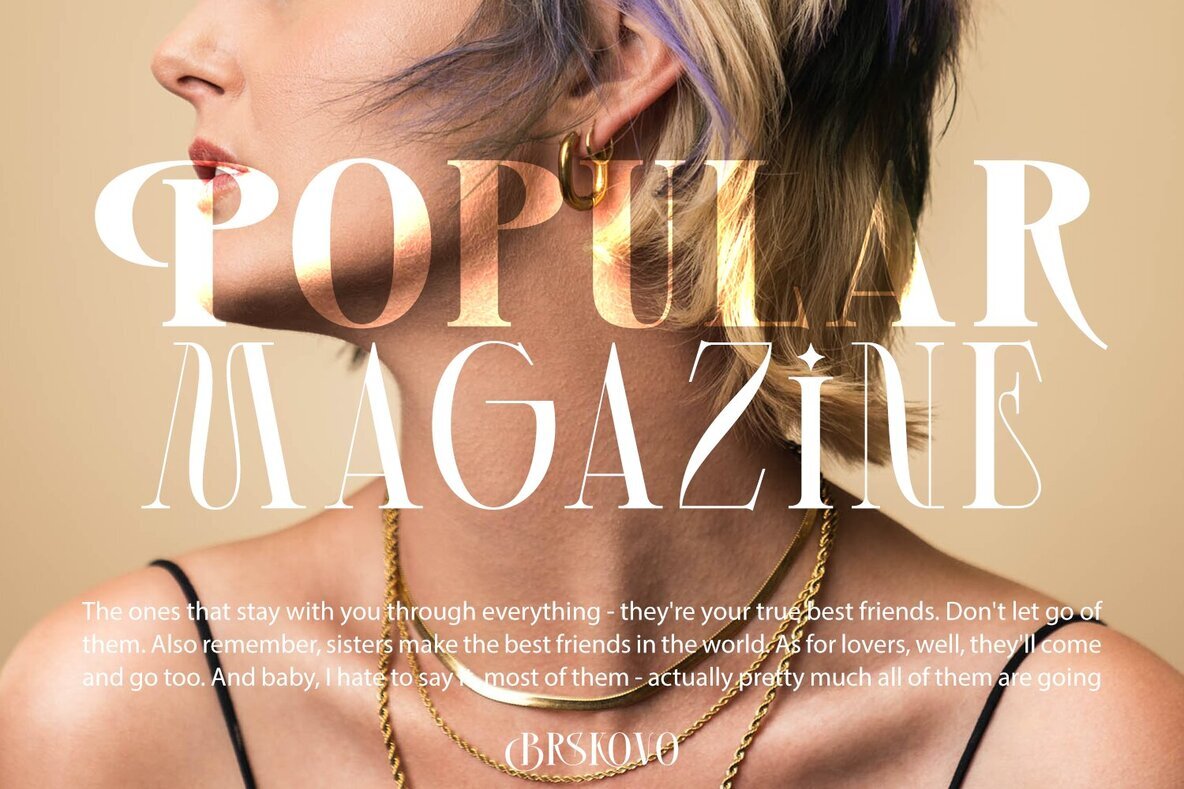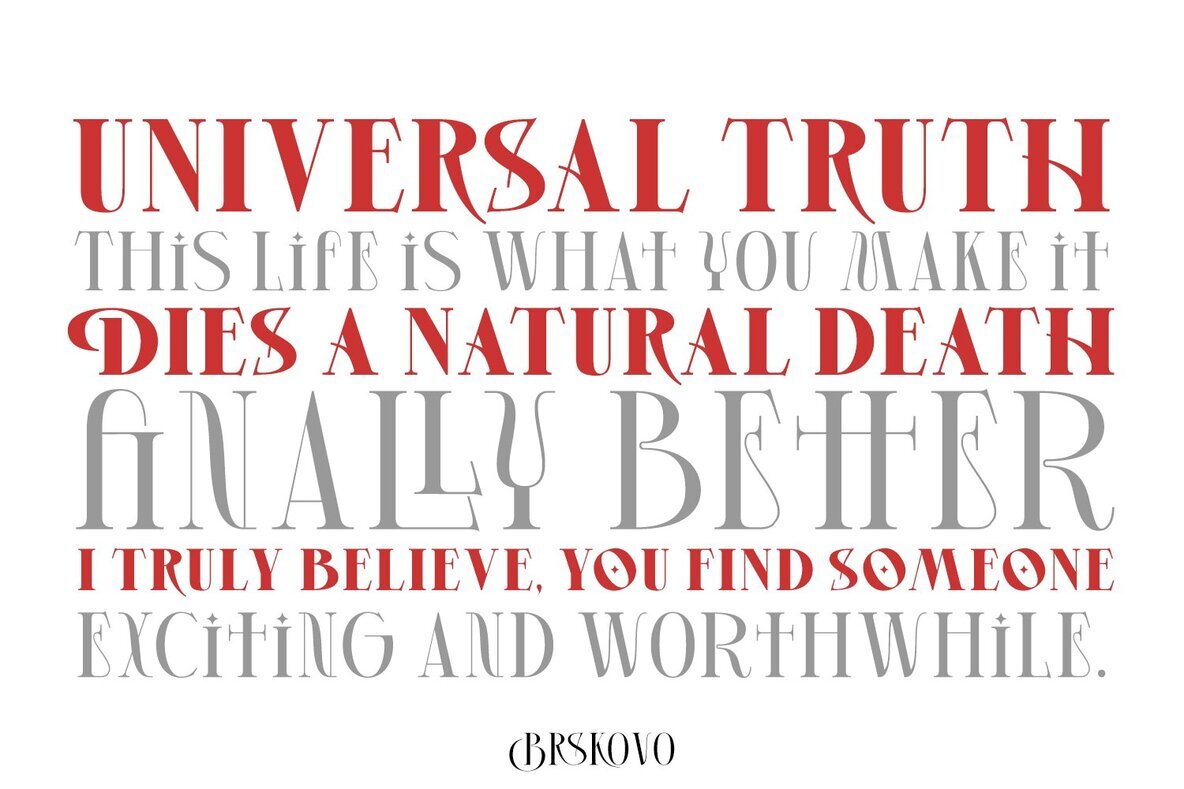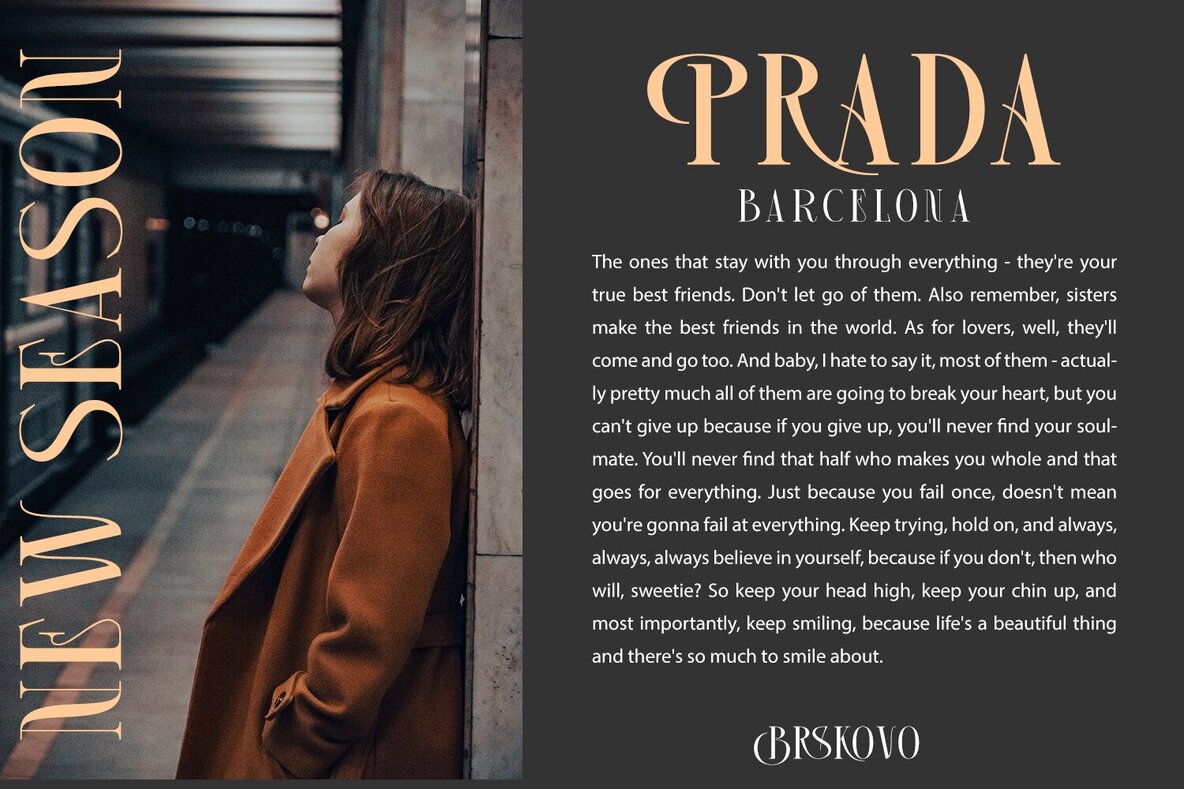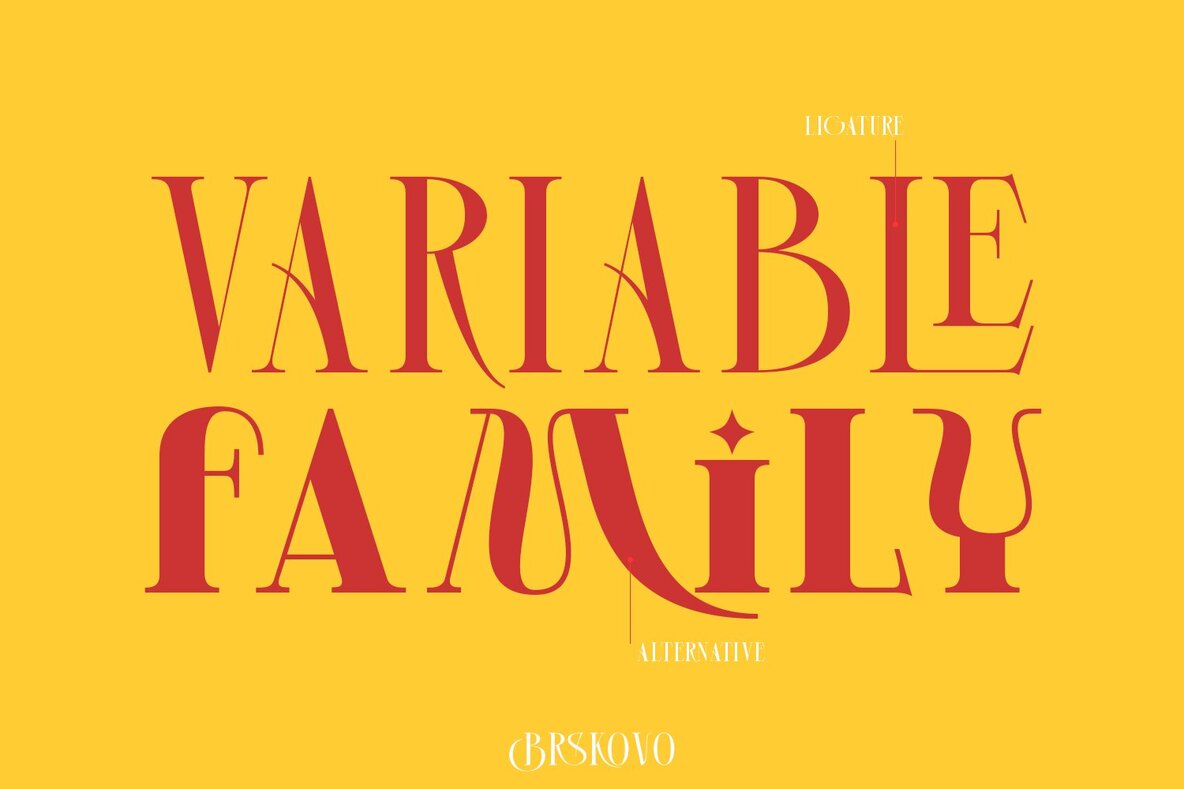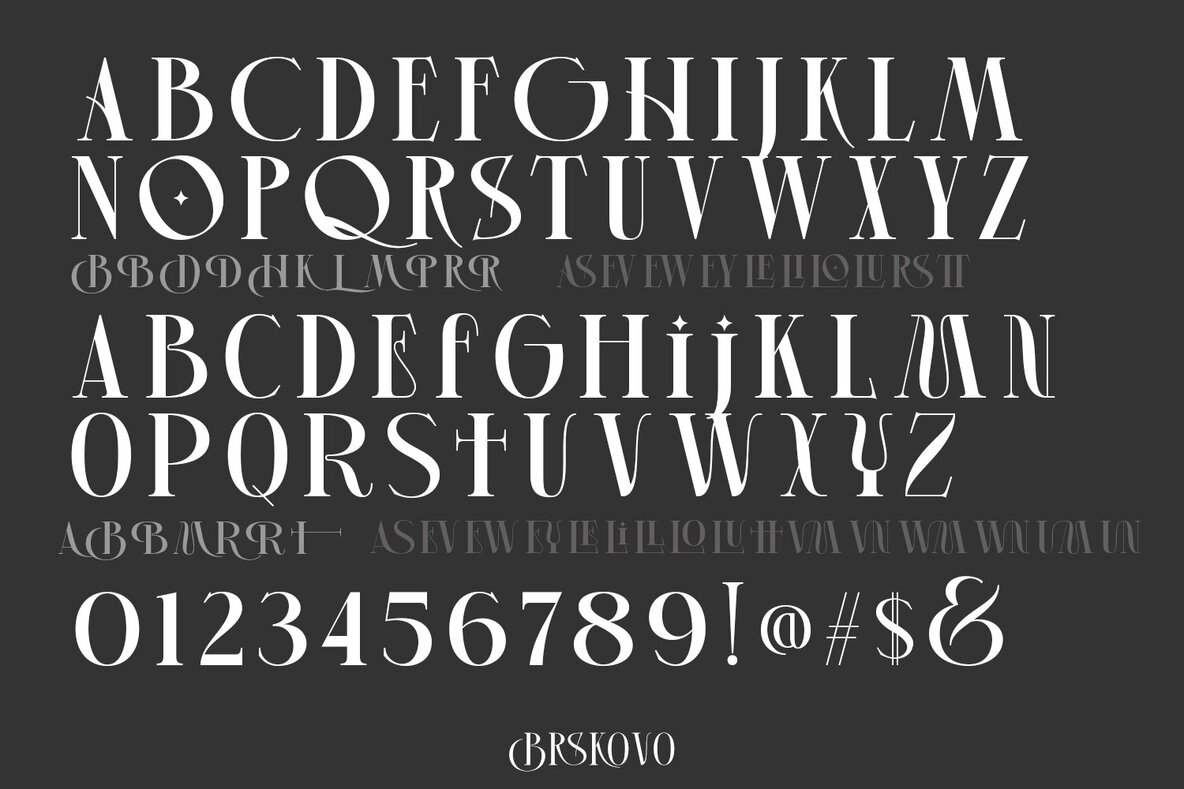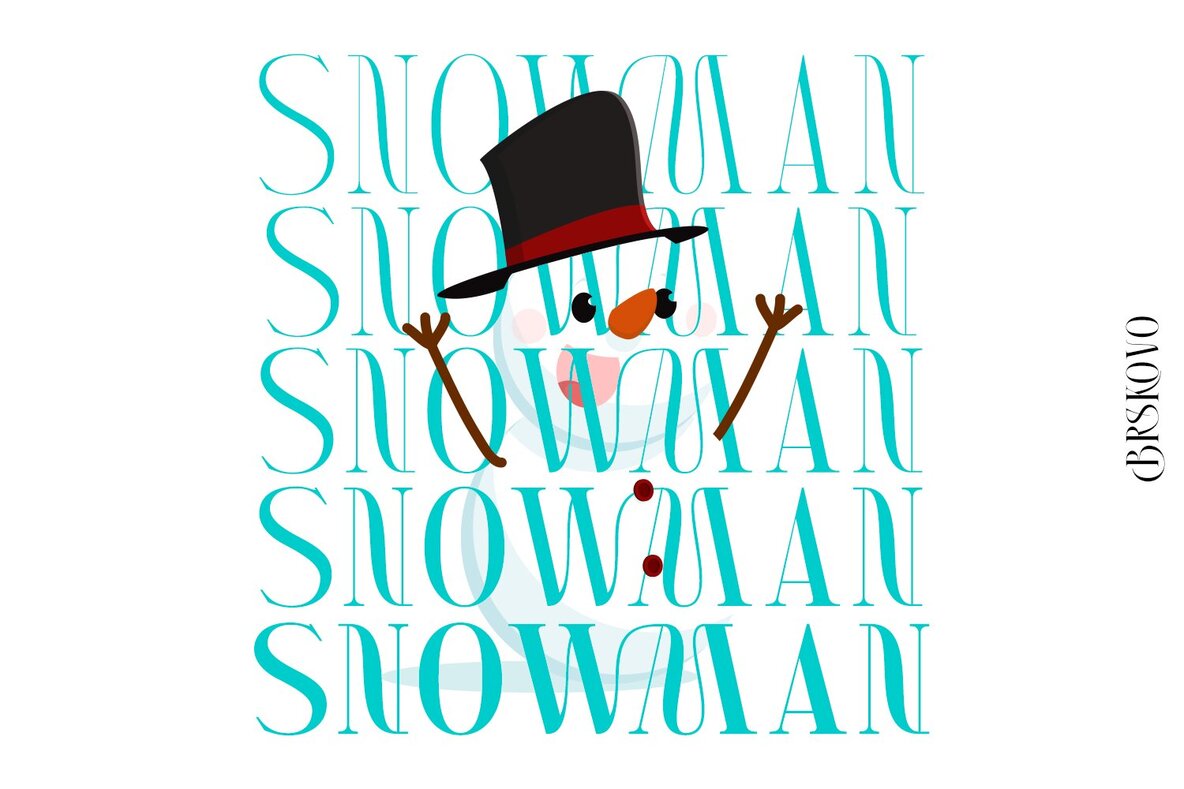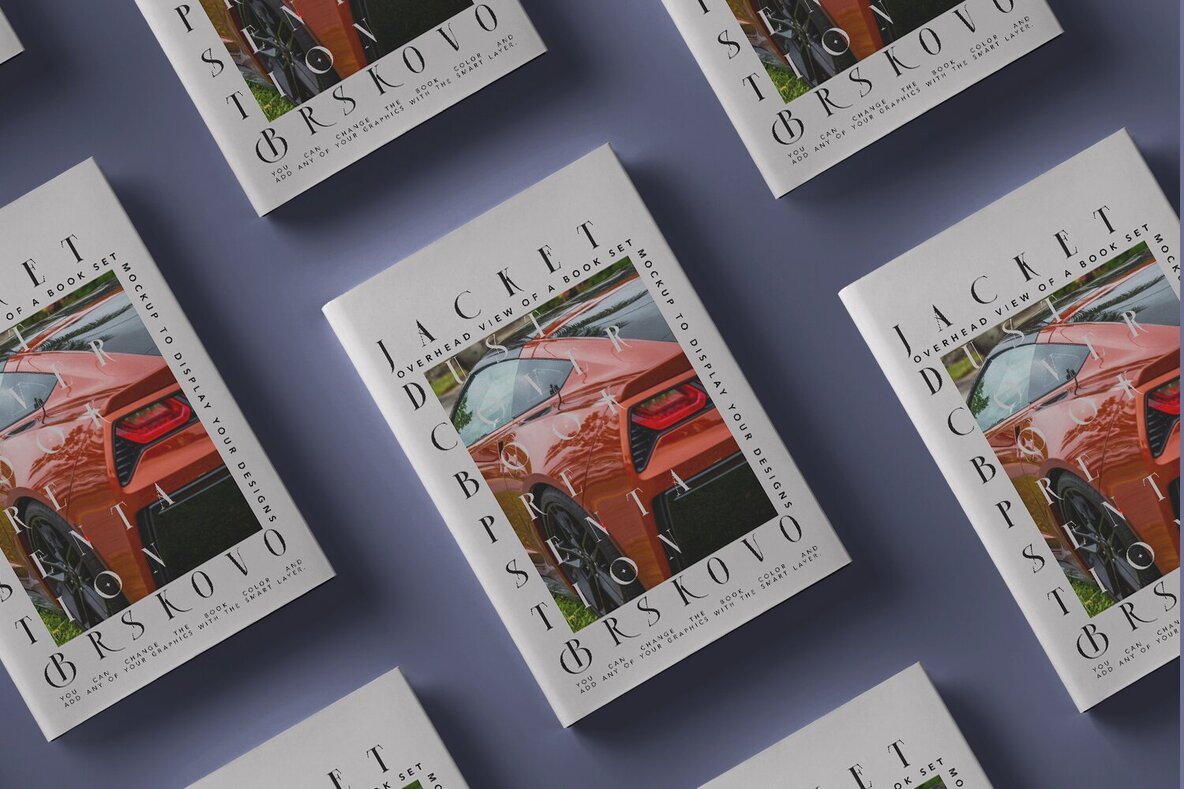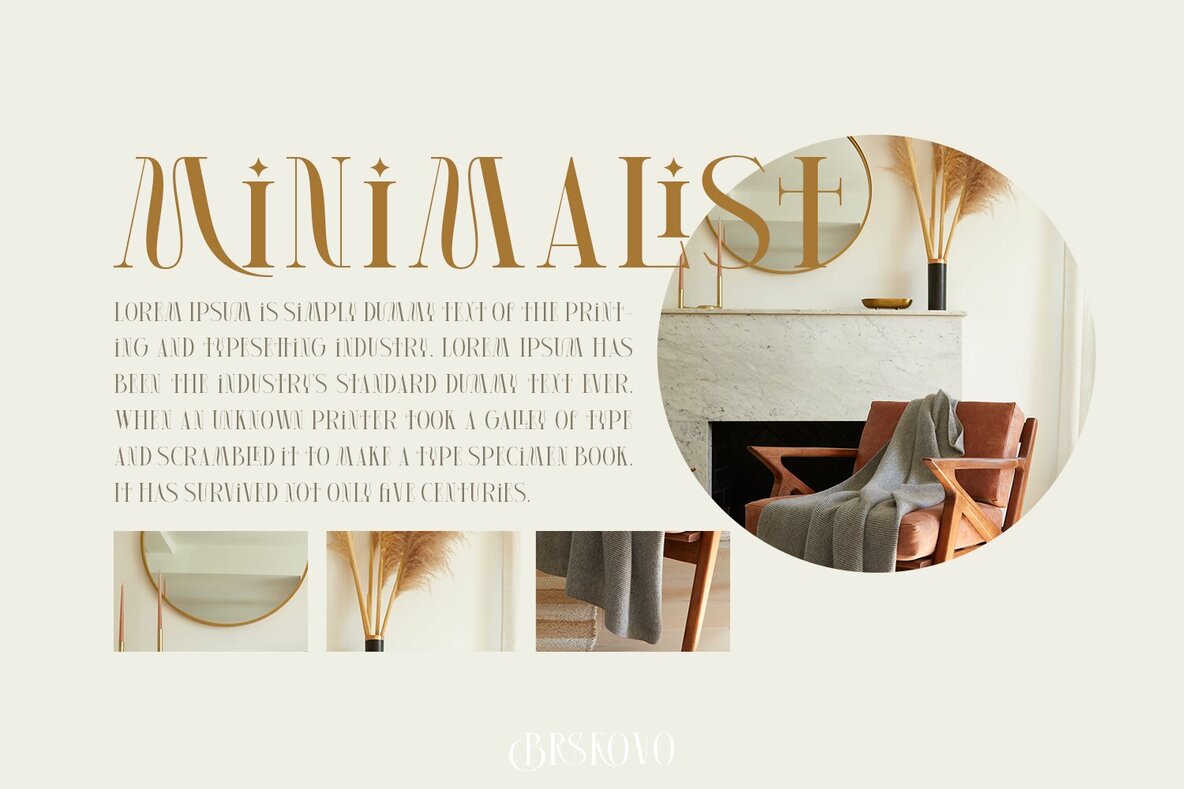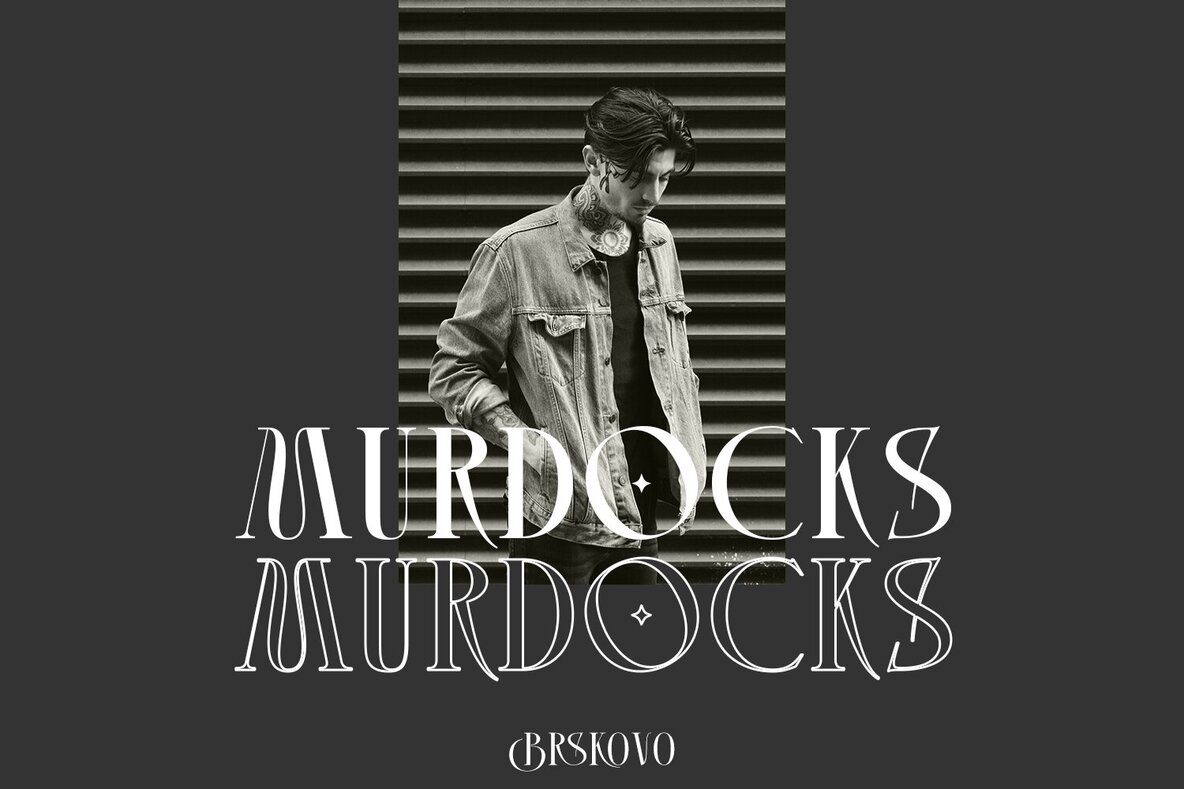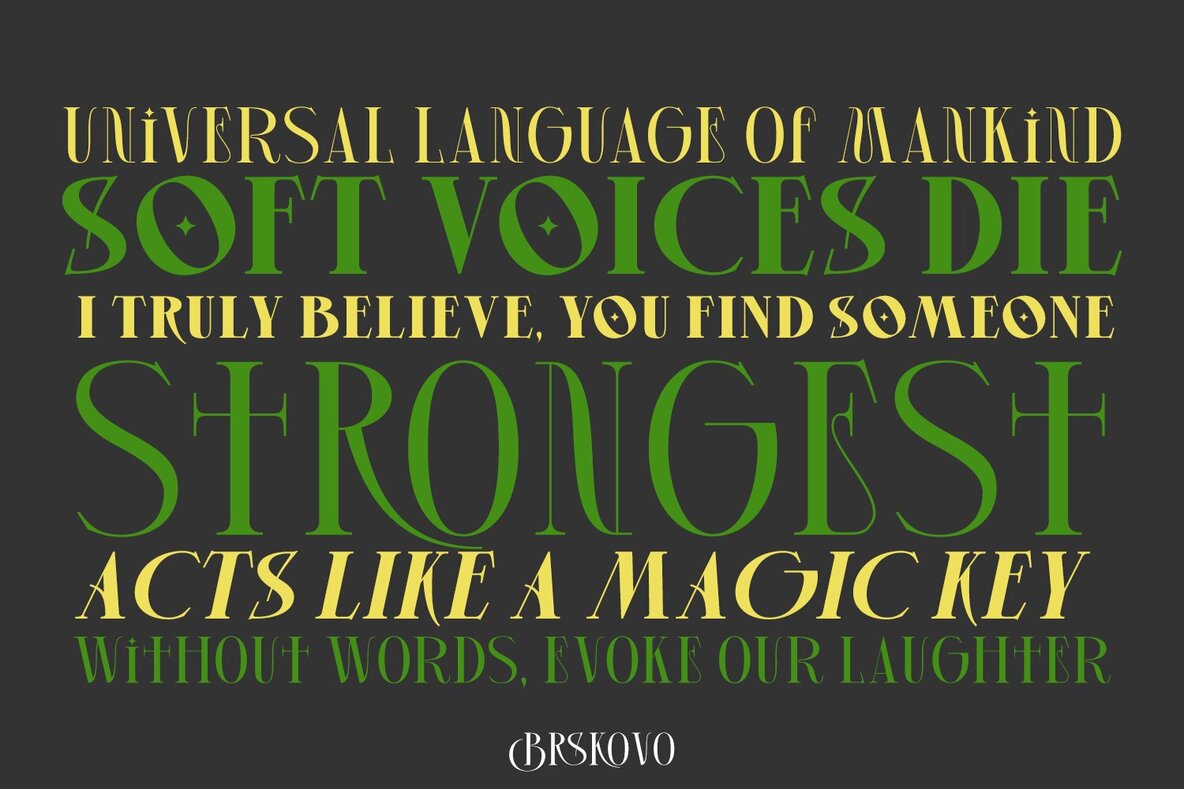
Brskovo: Modern Uppercase Serif for Versatile Design
Brskovo, a creation by Type Class Heroes, offers a contemporary twist on the classic serif style. Perfect for a diverse range of applications, from branding and product packaging to invitations and posters, this font adds elegance and sophistication to any project.
• Uppercase & Lowercase – Provides flexibility in design choices.
• Numbers & Symbols – Complements the font's versatility.
• International Glyphs – Ensures global usability with multilingual support.
• Alternatives & Ligatures – Enhances creativity and customization in text presentation.